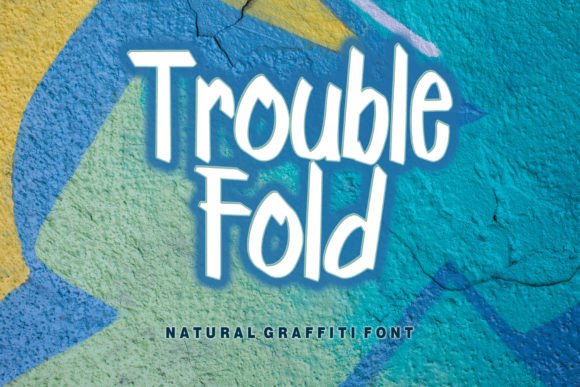
Journey into the realm of artistic expression with Trouble Fold Font, a captivating Handwritten font bursting with the energy of graffiti art. Its spontaneous strokes evoke the essence of urban culture, adding an edgy allure to your creative endeavors.
At the heart of Trouble Fold lies a profound understanding of the power of individuality, making it an ideal choice for those seeking to make a bold statement. This font is a testament to the transformative nature of typography, capable of elevating ordinary words into captivating expressions that resonate with your audience.
Unleash your creativity and let Trouble Fold ignite your imagination. Picture your designs adorned with the vibrant energy of this font, drawing the eyes and captivating the hearts of all who behold them. From branding projects that demand attention to wedding invitations that exude elegance, Trouble Fold is the key to unlocking your creative potential.
Dive into the world of Trouble Fold and discover a font that speaks to your soul. Its versatility empowers you to create stunning logos that leave a lasting impression, headers that command attention, and illustrations that transport viewers to another dimension.
Don't settle for ordinary fonts that blend into the background. Embrace the boldness of Trouble Fold and watch your designs come to life with an energy that captivates and inspires. Let your imagination soar and let Trouble Fold be your guide as you create masterpieces that leave an unforgettable mark.